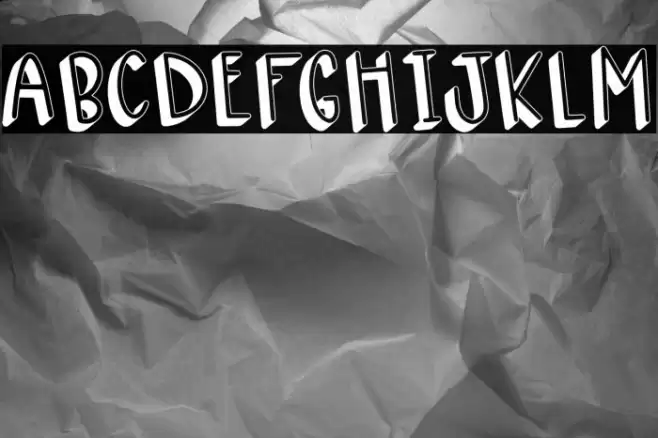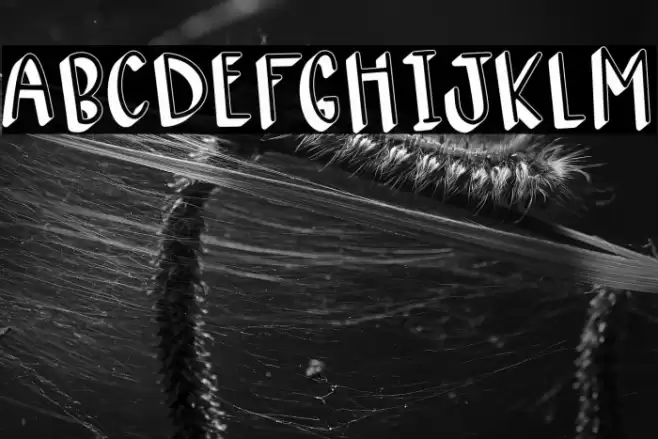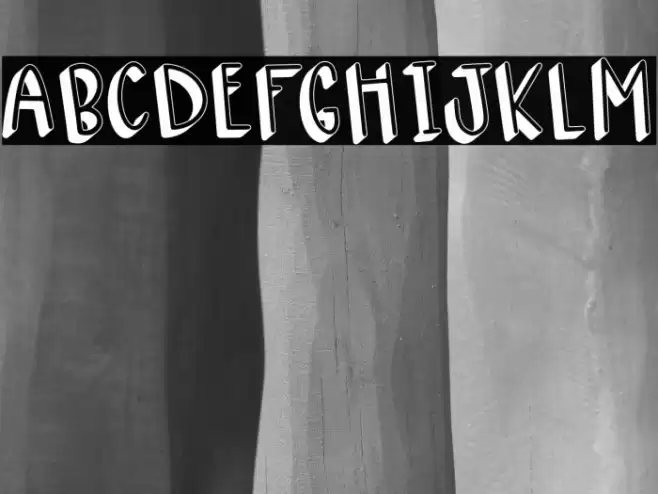
CHOCO RUM CAKE Font
CHOCO RUM CAKE Description
This font features bold, uppercase letters with a playful and dynamic style. The characters have a three-dimensional effect, created by a shadow that gives depth and a sense of movement. The strokes are thick and consistent, contributing to a strong visual impact. The design is modern and eye-catching, suitable for projects that require a bold statement. The font lacks lowercase letters and numerals, focusing solely on uppercase characters, which enhances its decorative appeal.
A bold, three-dimensional uppercase font with a playful and dynamic style from Cartoon fonts.
- Font: CHOCO RUM CAKE
- Proposed Projects: Ideal for posters, headlines, branding, and any design that requires a bold and playful touch.